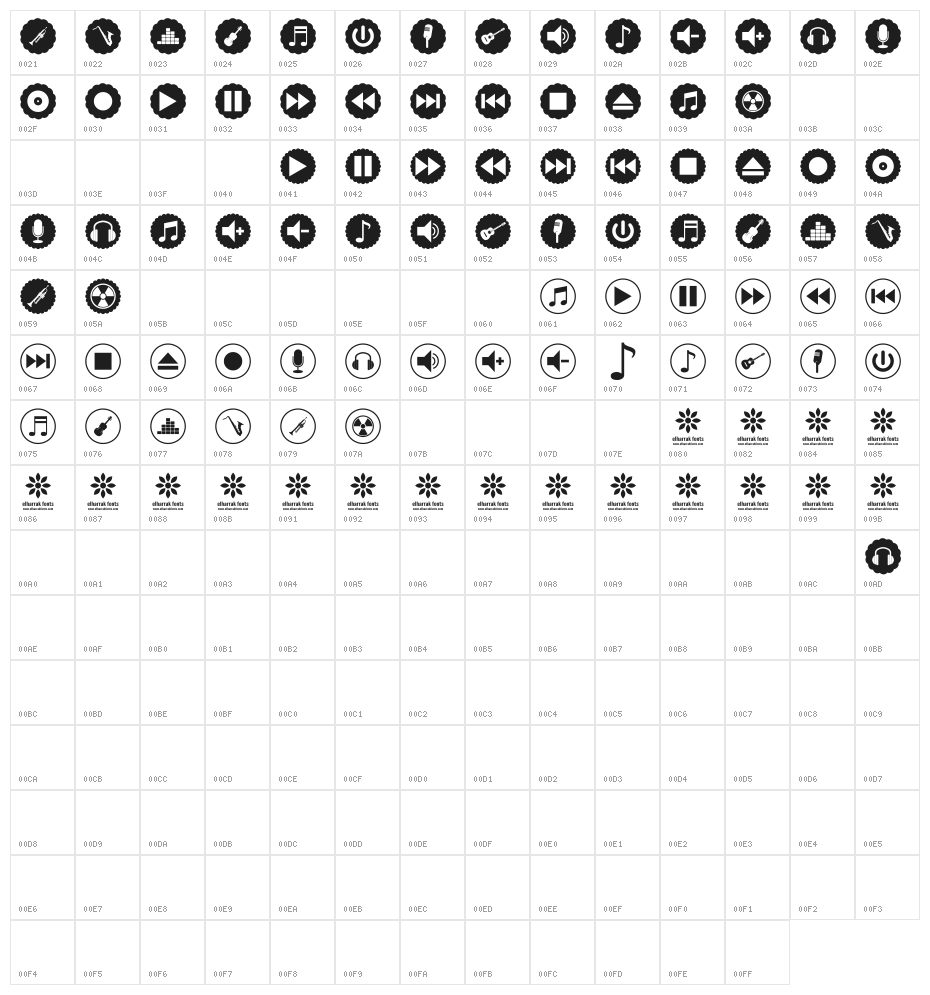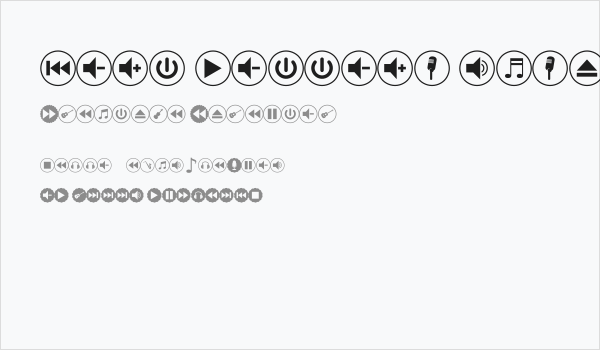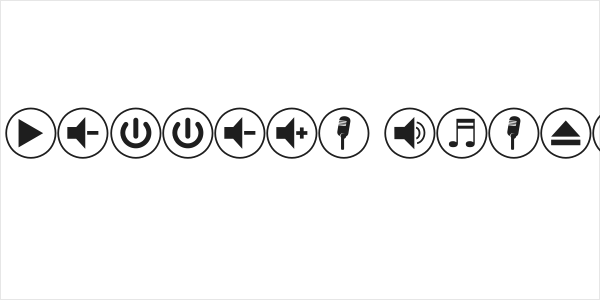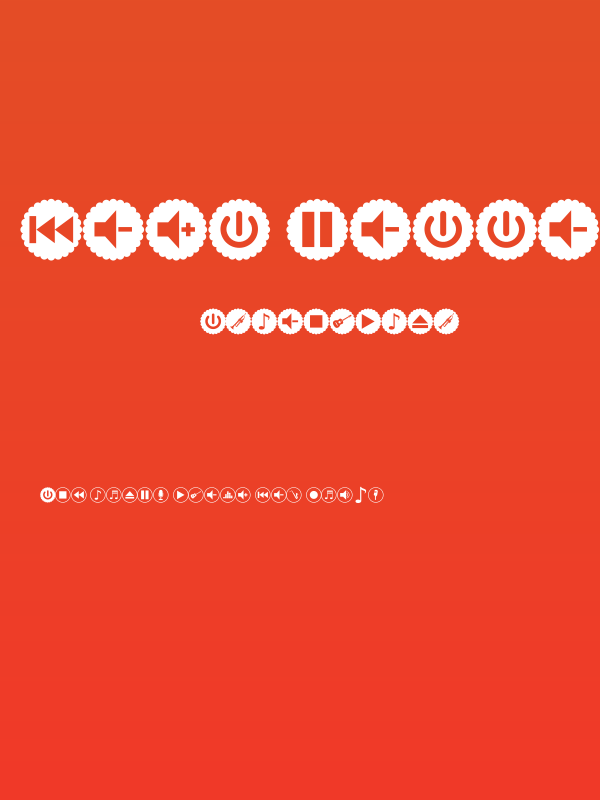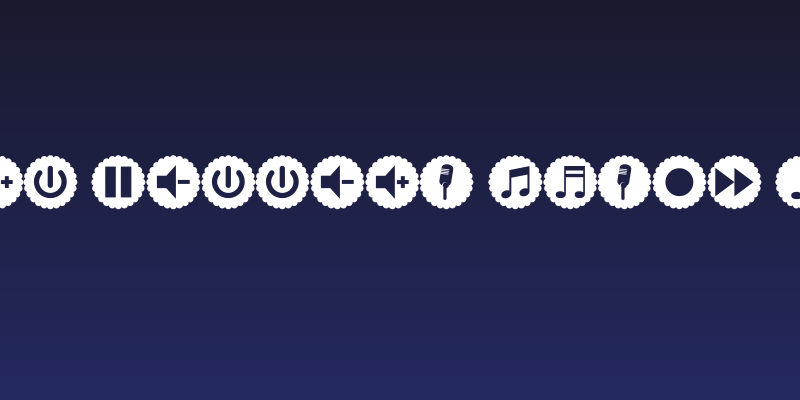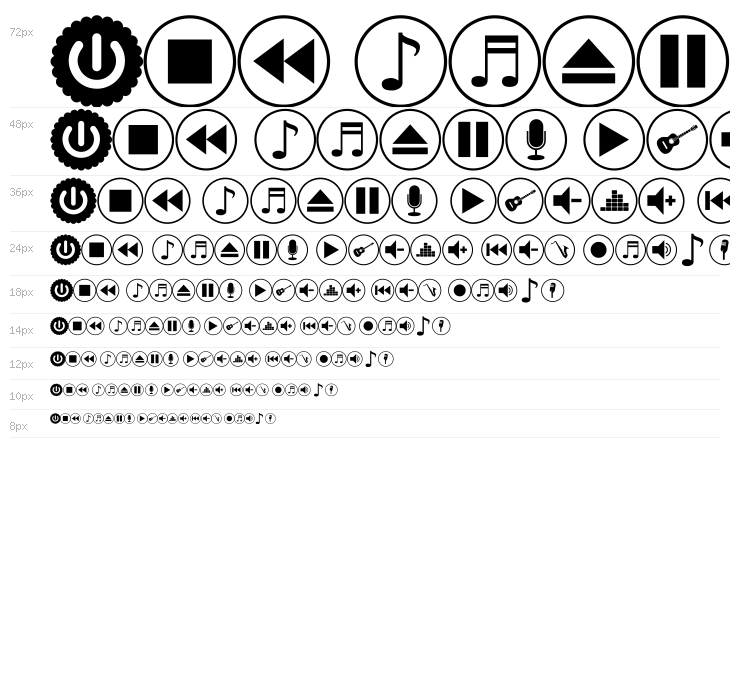
font bottons music pro Font
font bottons music pro Description
A collection of music-themed icon buttons featuring common playback controls, instruments, audio symbols, and sound-related imagery. The icons are presented in both solid and outlined circular or scalloped badge shapes, with clear, bold, and easily recognizable silhouettes.
| Use Case | Icons, UI elements, Buttons |
| Proposed Projects | Music apps, audio player interfaces, DJ software, educational materials, websites, and promotional graphics. |